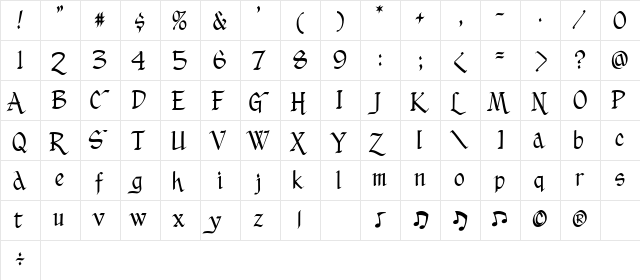
CC Yuletide Log Medium
Design Context for CC Yuletide Log Typeface
CC Yuletide Log is a composed and adaptable typeface that performs quietly and consistently across a wide range of design contexts.